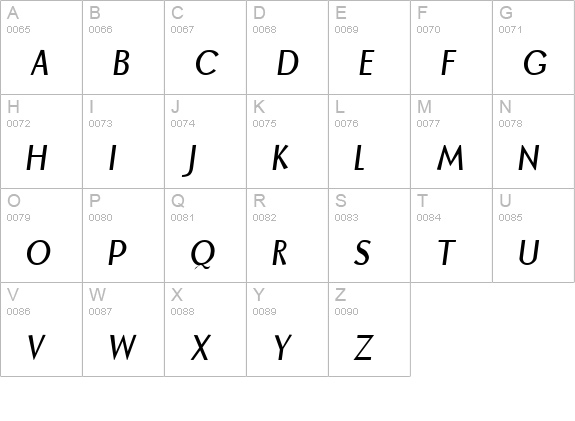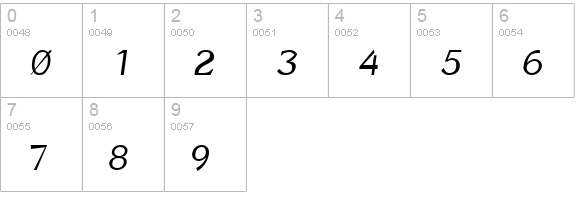
Borzoi Bold Italic is a strong, high-contrast, italic variant in the Borzoi typeface family \xE2\x80\x94 well suited to headlines, attention-grabbing titles, and strong calls-to-action.
Introducing Borzoi Bold Italic - a striking and sophisticated typeface that exudes elegance and class. This font features bold, flowing lines with a touch of italic flair, making it perfect for adding a touch of refinement to any design project. Borzoi Bold Italic is a versatile font that is ideal for a wide range of applications, from branding and advertising to editorial design and more. Its unique and eye-catching style is sure to make a statement and captivate your audience. And the best part? Borzoi Bold Italic is available for free download at FontsMarket.com. So you can elevate your designs with this stunning font without breaking the bank. Don't miss out on this opportunity to add a touch of sophistication to your projects with Borzoi Bold Italic. Download it now and let your creativity soar!